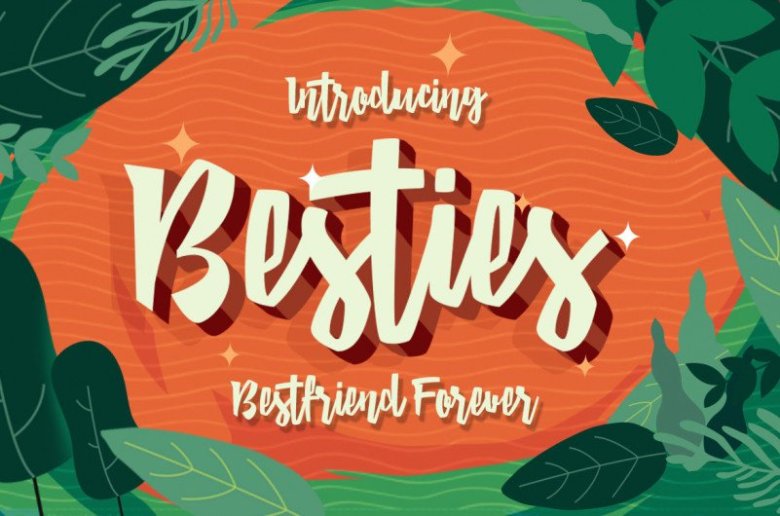
Besties Script Font
Besties Script Font is a bold display font, carefully handcrafted to become a true favorite. Its casual charm makes it appear wonderfully down-to-earth, readable and, ultimately, incredibly versatile.
Besties will look outstanding in any context, whether it’s being used on busy backgrounds or as a standalone headline!